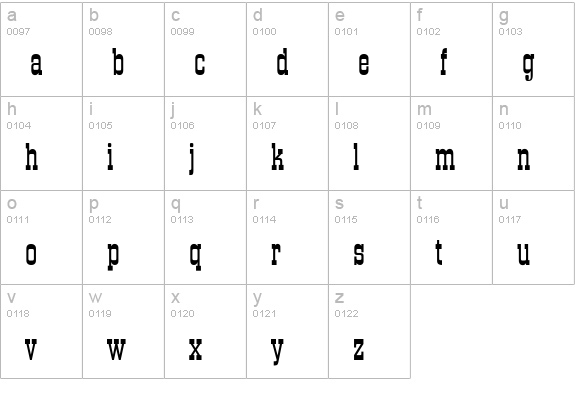
OldTown-Normal Font Details
OldTown-Normal is the standard, neutral variant in the OldTown typeface family \xE2\x80\x94 well suited to general body text, paragraphs, and standard typographic work.
OldTown-Normal font is a classic and timeless typeface that exudes a sense of nostalgia and charm. Its elegant and sophisticated design makes it perfect for various projects, from invitations to branding to editorial design. With its vintage feel and clean lines, OldTown-Normal font adds a touch of elegance to any design. The best part is that OldTown-Normal font is available for free at FontsMarket.com. You can easily download this versatile and stylish font to enhance your creative projects without any cost. Don't miss out on the opportunity to add this beautiful font to your collection and elevate your designs with its timeless appeal.